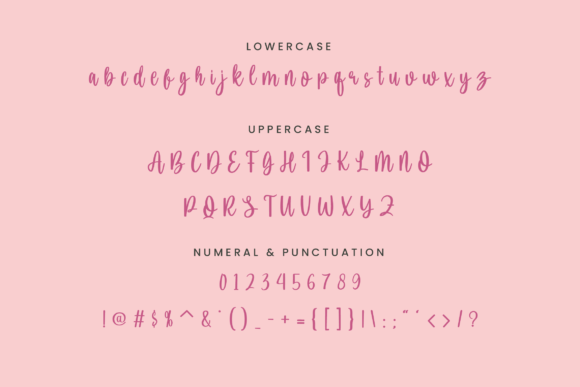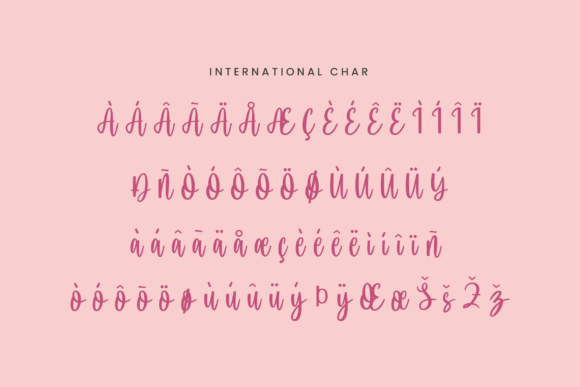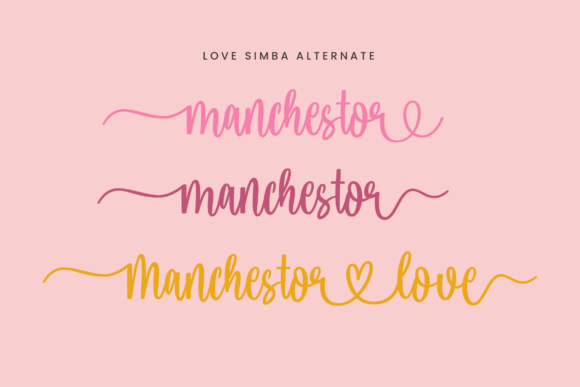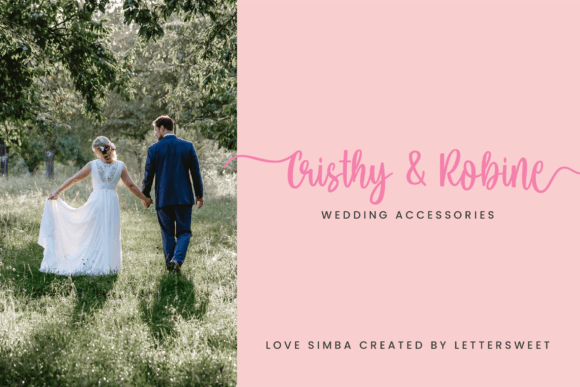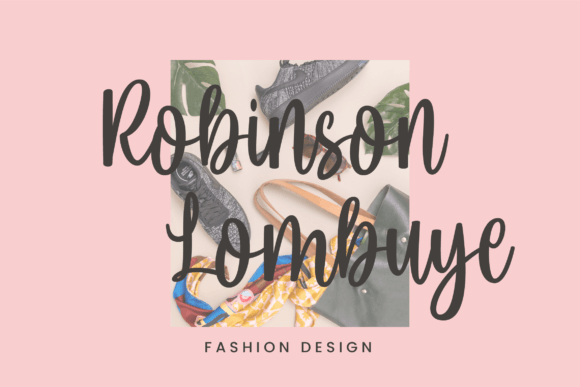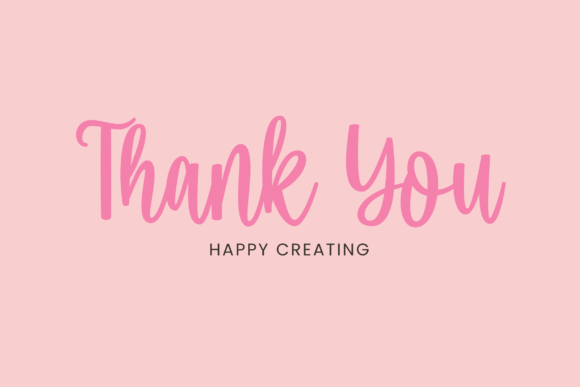
Introduction to Love Simba Font
Have you ever found yourself stuck on a creative project, searching for that perfect font to bring your vision to life? For designers, this moment is all too familiar. The search for the ideal font can be a daunting task, but what if I told you that you’ve just stumbled upon it? The Love Simba Font is a game-changer, offering a delicate, elegant, and flowing handwritten style that will elevate your designs to the next level.
This beautifully crafted font is perfect for designers who crave high-quality, unique typography that adds a touch of personality to their work. With its well-balanced characters and transparent background, the Love Simba Font is a versatile design resource that can be used in a wide range of creative projects. And the best part? It’s available for free download, making it an invaluable addition to any designer’s toolkit.
Key Features of Love Simba Font
- High-quality design with a unique, playful style suitable for creative projects
- Transparent background for easy integration with any design or background
- Resolution: Optimized for high-resolution displays, ensuring crisp and clear text rendering
- Perfect for use in children’s book illustrations, nursery decor, and other projects requiring a fun and whimsical touch
Honest Review: Love Simba Font
I recently had the chance to try out the Love Simba Font, and I must say it’s been a delightful experience. This high-quality font is perfect for any creative project where you want to add a touch of elegance and sophistication.
One of the standout features of this font is its transparent background, which makes it incredibly versatile and easy to use. It’s perfect for adding text overlays to images, creating beautiful graphics, or even designing your own logos.
Here are some of the things that work well with the Love Simba Font:
- ✨ High-quality design that looks great on any device
- ✨ Transparent background for easy use and customization
- ✨ Compatible with a wide range of creative applications
- ⚠️ Limited font styles and variations, which may not be ideal for projects that require a lot of font customization
- ⚠️ May not be suitable for very small text sizes, as the font can become difficult to read
Overall, I’m thoroughly impressed with the Love Simba Font. It’s a fantastic design resource that’s perfect for a wide range of creative projects. Whether you’re a seasoned designer or just starting out, I highly recommend giving it a try.
The Love Simba Font is a high-quality, creative design resource perfect for any project. With a transparent background, this font is versatile and can be used in a variety of applications.
To get the most out of the Love Simba Font, try combining it with other design elements to create a unique and eye-catching look. Experiment with different font sizes, styles, and colors to find the perfect combination.
The Love Simba Font is perfect for a variety of creative projects, including invitations, social media graphics, and blog posts. Its high-quality design and transparent background make it a versatile and useful design resource.